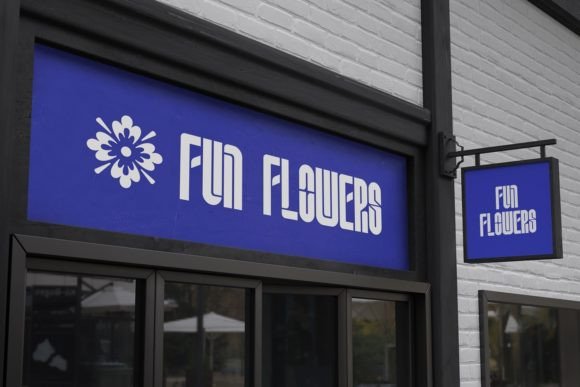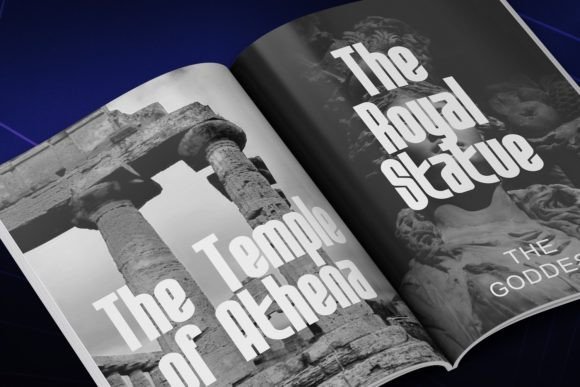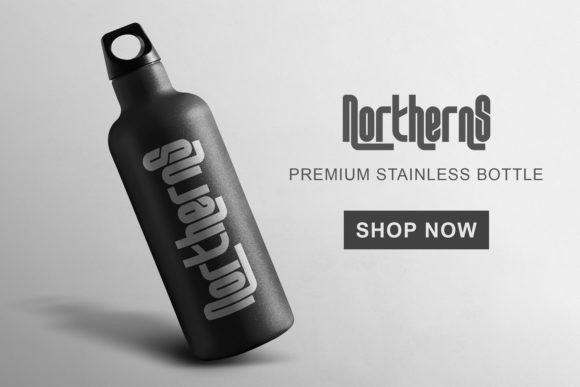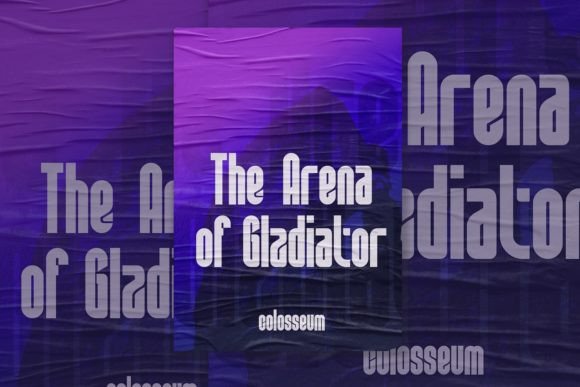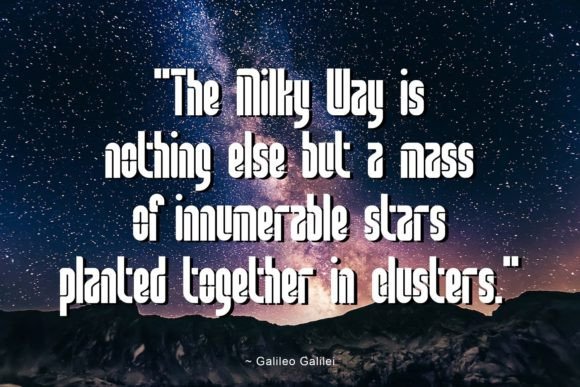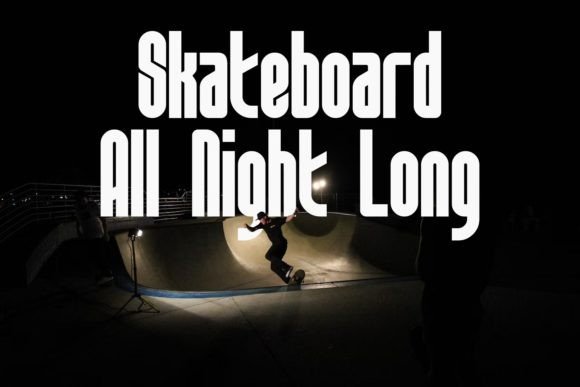
Introduction to Asteroid Type Font
Asteroid Type is a modern futuristic sans font with a bold feel.
It will add a contemporary update to any design project On top of everything, it has a techno feel, making it ideal for titles, subtitles, and UI.